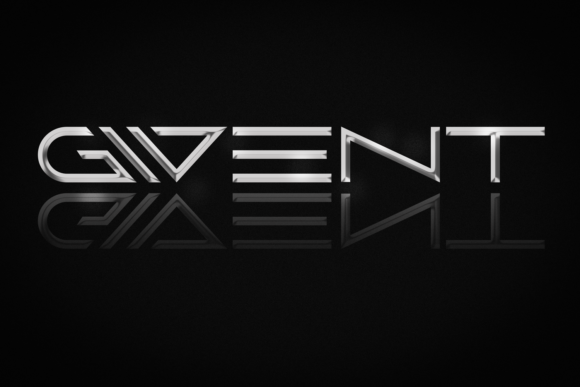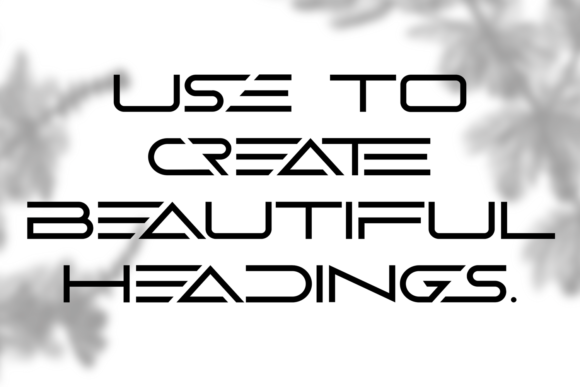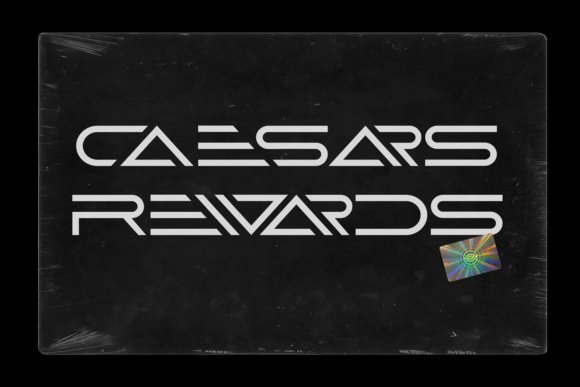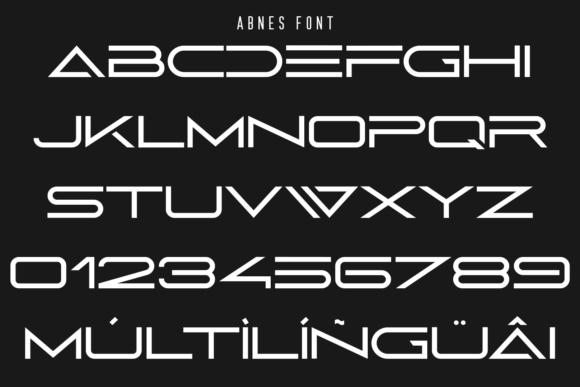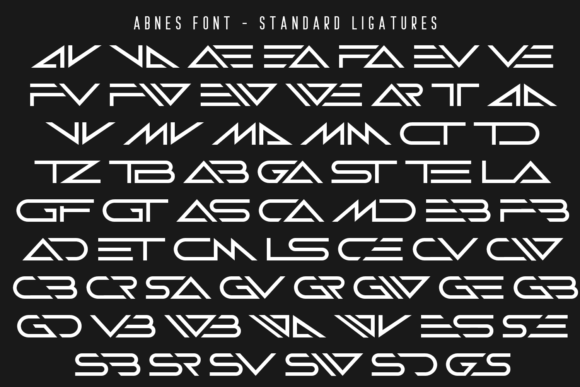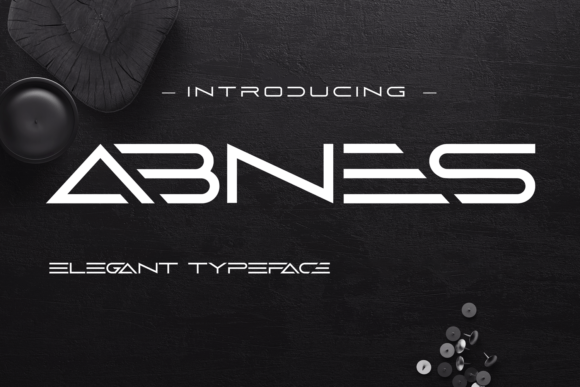
Unlock the Power of Abnes Font
Have you ever been stuck in front of a blank page, desperately trying to come up with the perfect headline for your latest design project? You know the feeling – the cursor blinks, your mind goes blank, and you start to doubt your creative abilities. But what if I told you that there’s a font that can help you break through that creative block and create something truly stunning?
Enter the Abnes Font, a modern and breathtakingly beautiful display font that’s perfect for adding a touch of elegance to your designs. With its PUA encoding, you’ll have access to a vast array of glyphs and swashes, allowing you to create gorgeous invitations, stunning logos, and beautiful headings that will leave a lasting impression on your audience.
As a designer, you know how valuable it is to have the right tools at your disposal. The Abnes Font is a game-changer, offering a level of flexibility and creativity that’s hard to find elsewhere. Whether you’re working on a high-end branding project or a simple social media graphic, this font is sure to help you take your designs to the next level.
Abnes Font Key Features
- Font Family: Abnes Font is a sans-serif font family designed for digital use.
- Size: Abnes Font is available in 8 different font weights, ranging from Thin to Black, allowing for versatile typography options.
- Resolution: Designed for high-resolution displays, Abnes Font is optimized for use at 72 dpi, 144 dpi, and 300 dpi, ensuring crisp and clear text rendering.
- Unique Characteristics: Abnes Font features a unique blend of modern and minimalist design elements, making it suitable for a wide range of digital applications, including user interfaces, web design, and mobile apps.
- Language Support: Abnes Font supports a wide range of languages, including Latin, Cyrillic, and Greek alphabets, making it a versatile choice for global audiences.
Abnes Font Review
I recently had the chance to work with the Abnes Font, and I must say it’s a mixed bag. Let’s start with what works well.
- ✨ Unique letterforms: The Abnes Font has some truly one-of-a-kind letterforms that can add a touch of personality to your designs.
- ✨ Good for creative projects: This font is perfect for projects that require a bit of flair and whimsy.
However, there are some limitations to consider.
- ⚠️ Limited legibility: In certain font sizes or line heights, the Abnes Font can become difficult to read.
- ⚠️ Not ideal for body text: Due to its unique letterforms, this font is not suitable for large blocks of text.
- ⚠️ Limited font weights: The Abnes Font only comes in a few font weights, which can limit its versatility.
Overall, I’d say the Abnes Font is a great choice for creative projects that require a touch of personality. However, it’s not a good fit for projects that require clear, readable text. With a bit of caution and careful selection, the Abnes Font can be a great addition to your design toolkit.
Getting the Most Out of Abnes Font
To get the most out of Abnes Font, try the following tips:
- Use Abnes Font for headings and titles to add a touch of elegance.
- Combine Abnes Font with other fonts to create a unique and visually appealing design.
- Experiment with different font sizes and styles to add emphasis and hierarchy to your design.
Abnes Font is commonly used for:
- Branding and logos.
- Editorial and publishing designs
Alternatives to Abnes Font for Designers
Montserrat is a modern sans-serif font designed by Julieta Ulanovsky. It’s perfect for digital applications, such as websites and mobile apps, where legibility is crucial. Montserrat is more geometric and has a cleaner design compared to Abnes Font, making it ideal for modern designs.
Avenir is a sans-serif font designed by Adrian Frutiger. It’s a great choice for designs that require a sense of elegance and sophistication. Avenir is more refined and has a more subtle design compared to Abnes Font, making it suitable for high-end designs.
Open Sans is a modern sans-serif font designed by Steve Matteson. It’s highly legible and versatile, making it perfect for a wide range of designs, from digital applications to print materials. Open Sans is more rounded and friendly compared to Abnes Font, making it ideal for designs that require approachability.